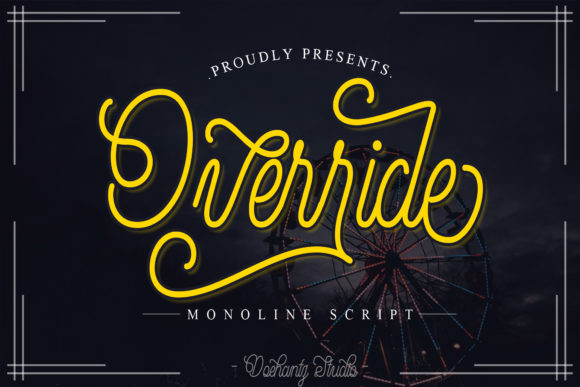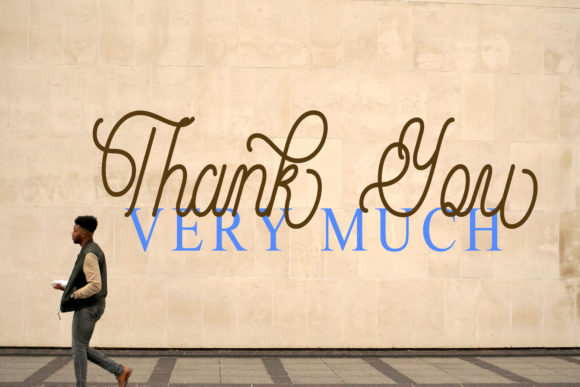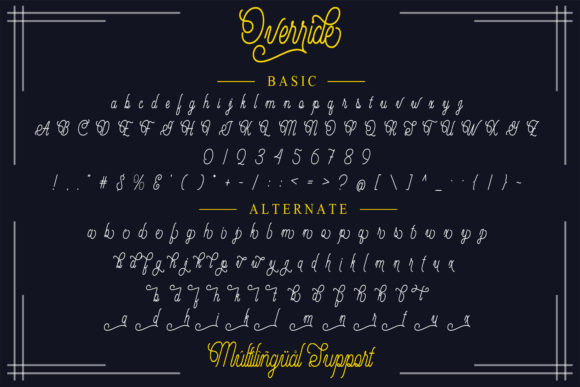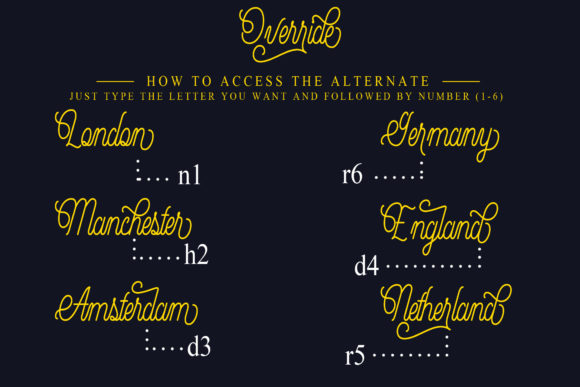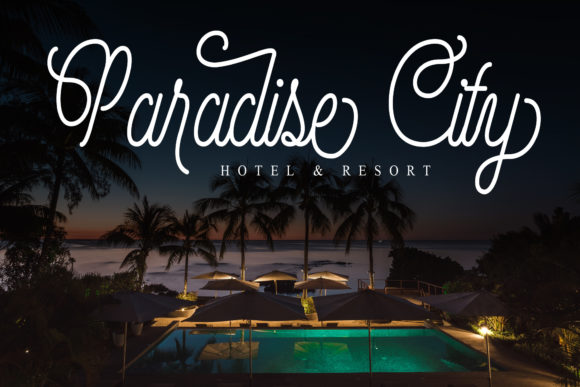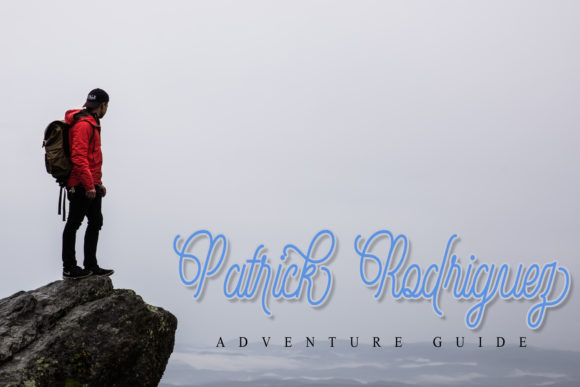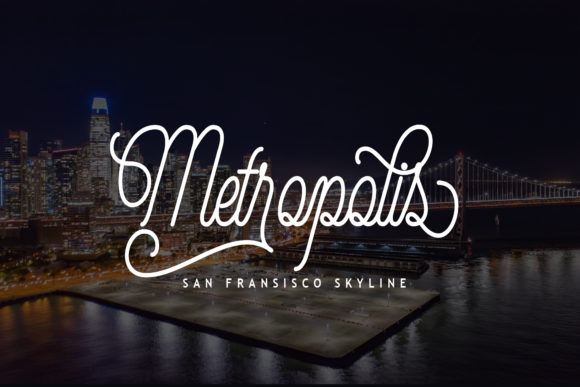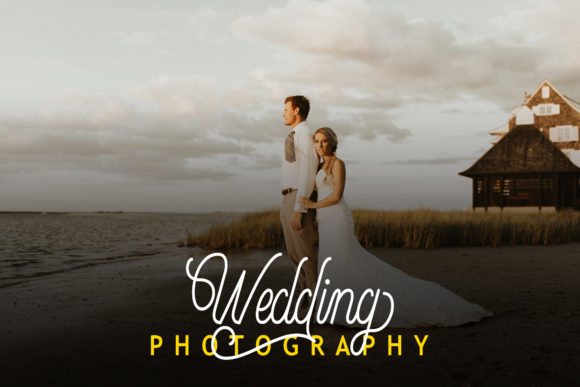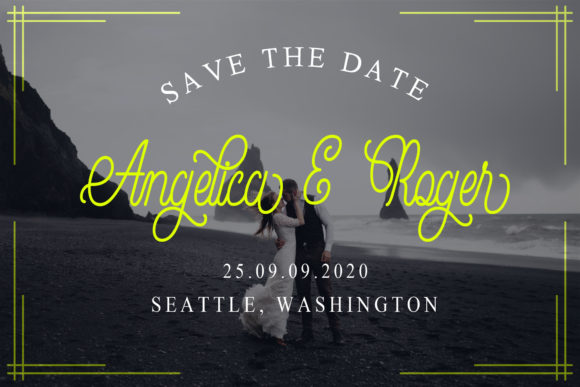
Override Font
About Override Font
Override simplifies elegance into one truly outstanding handwritten font. Override will look outstanding in any context, whether it’s being used on busy backgrounds or as a standalone headline!